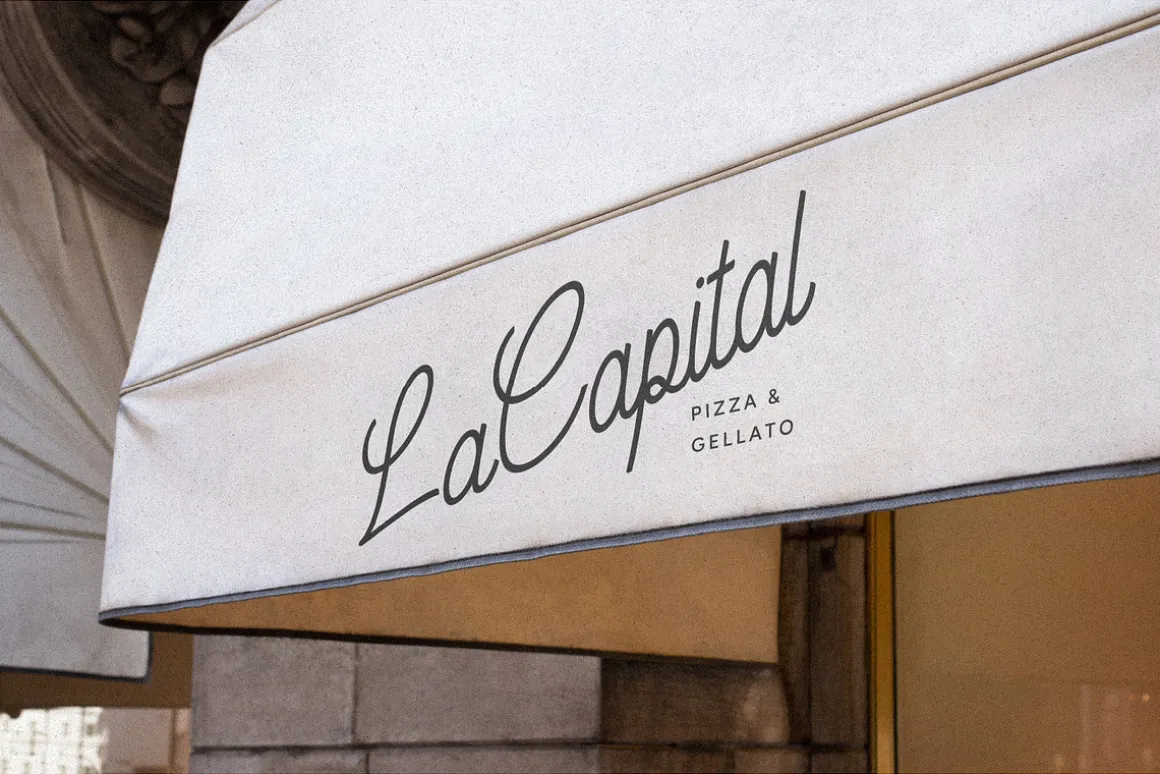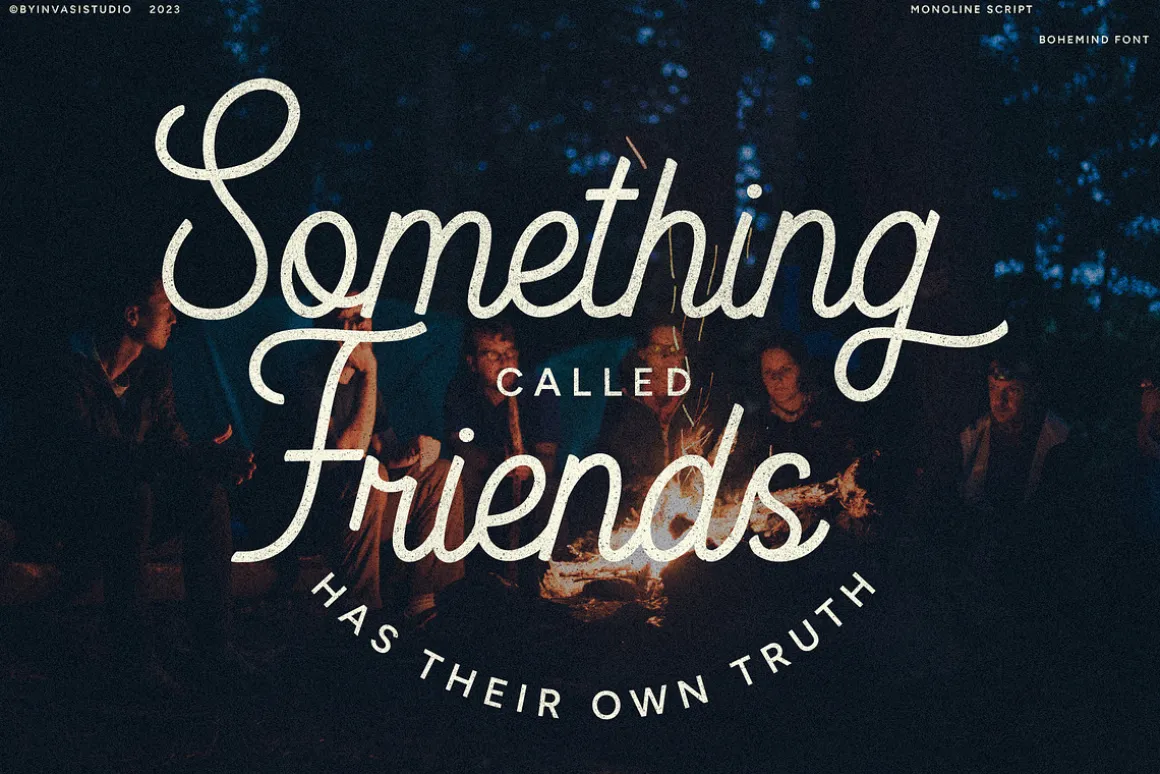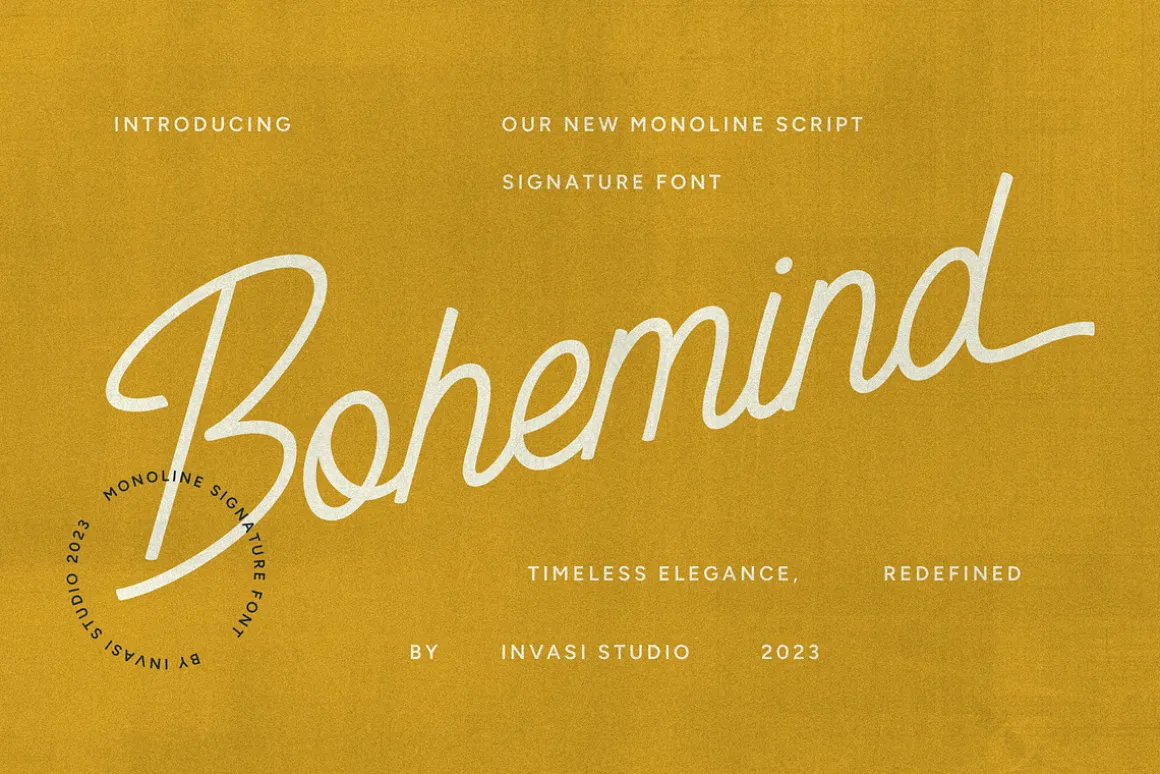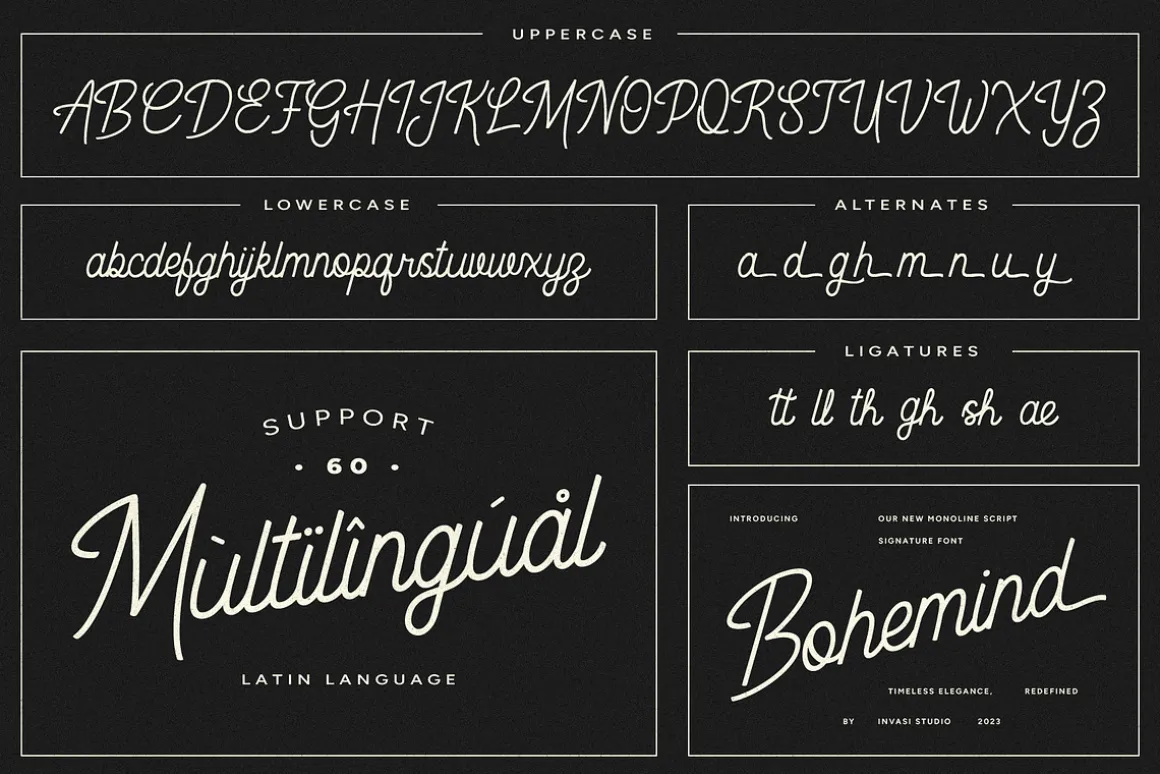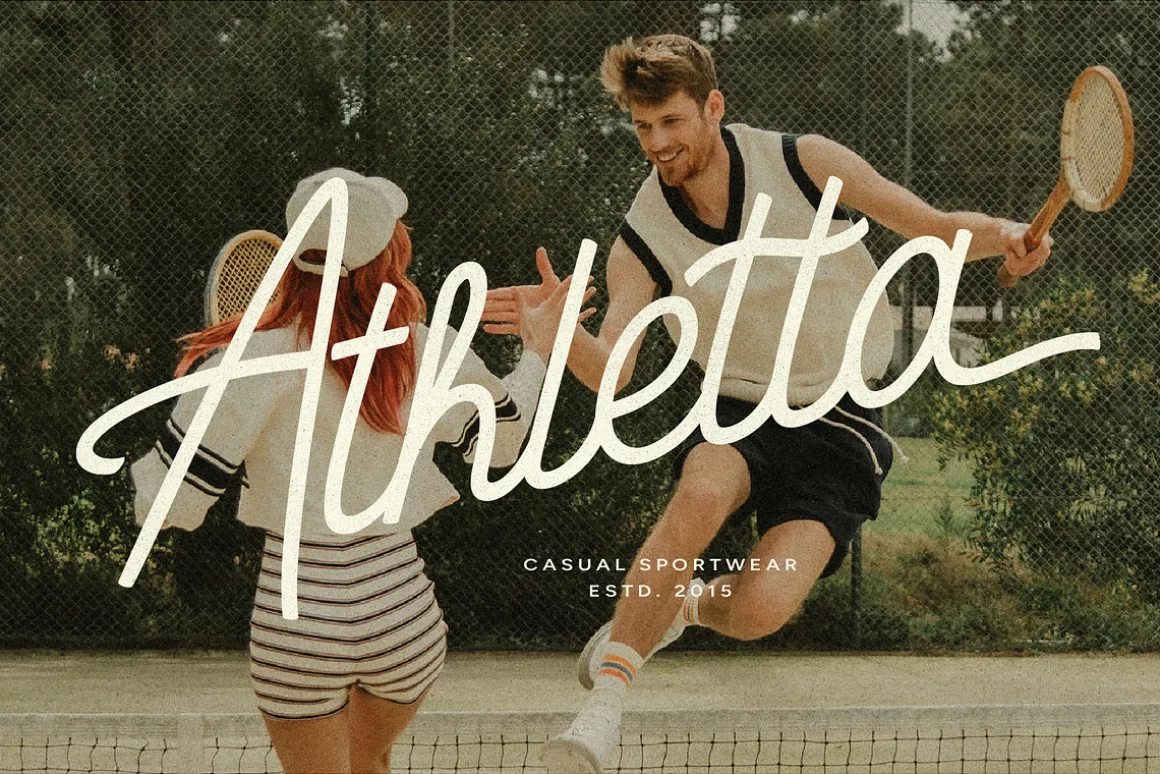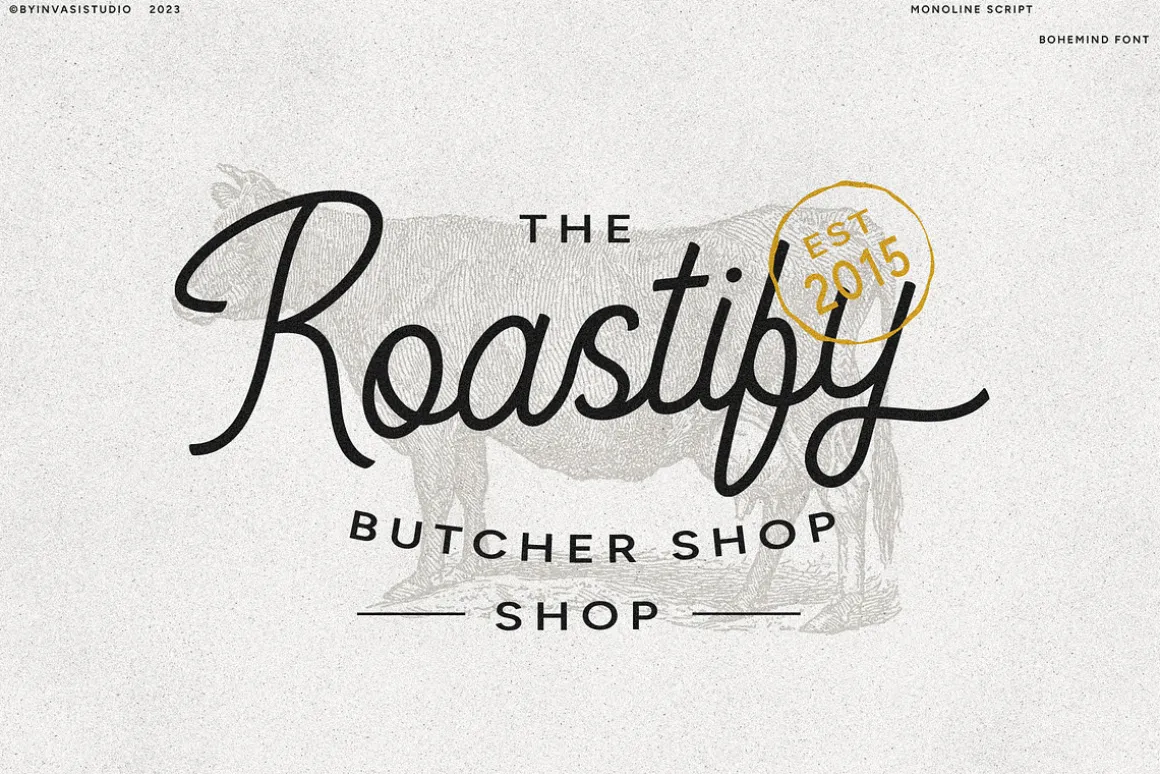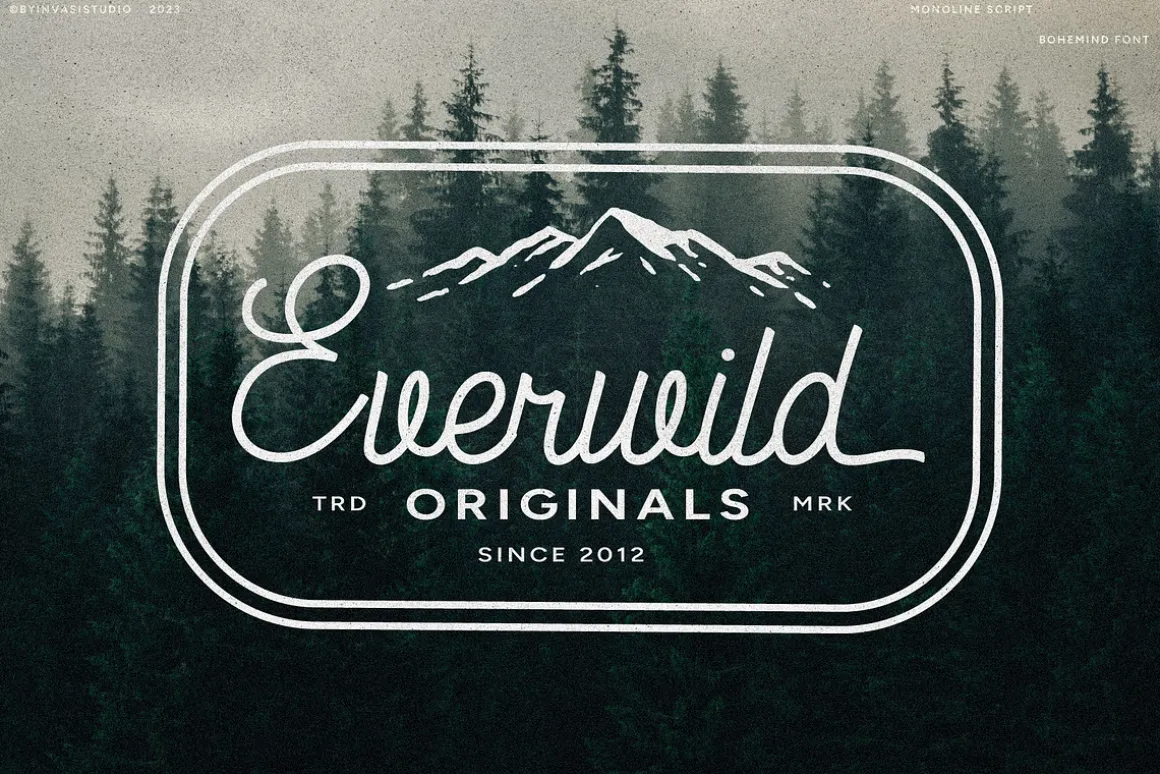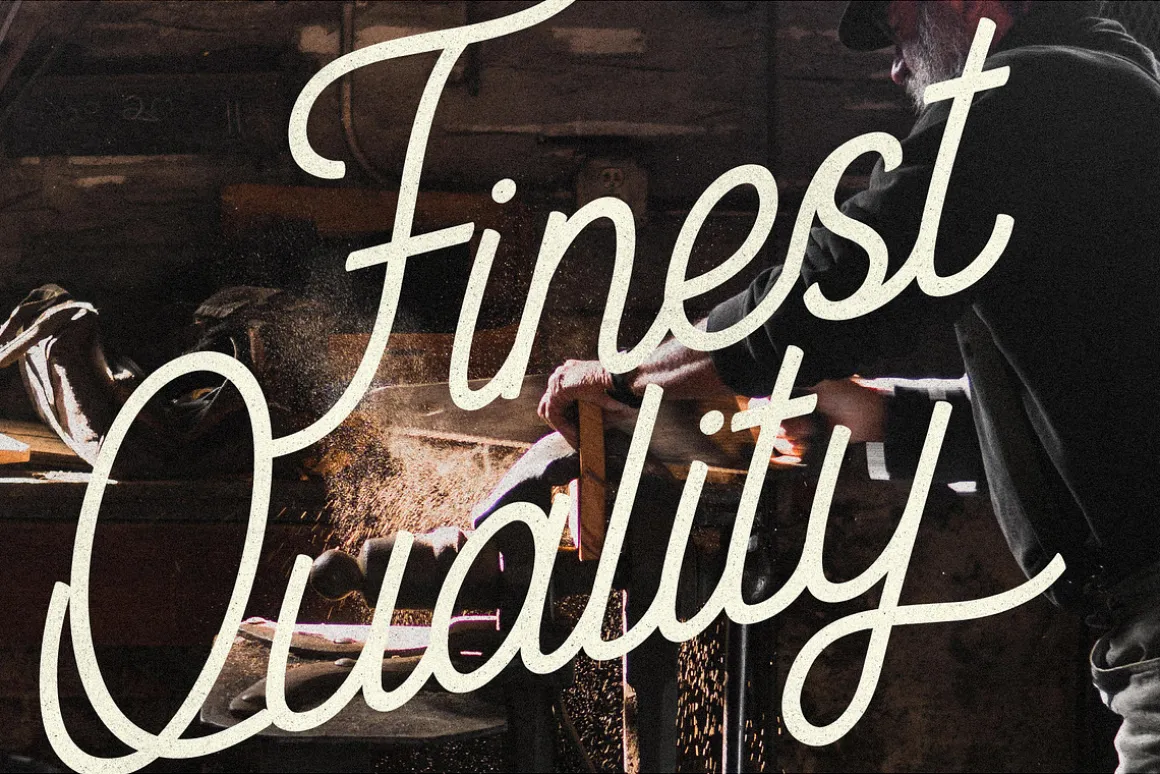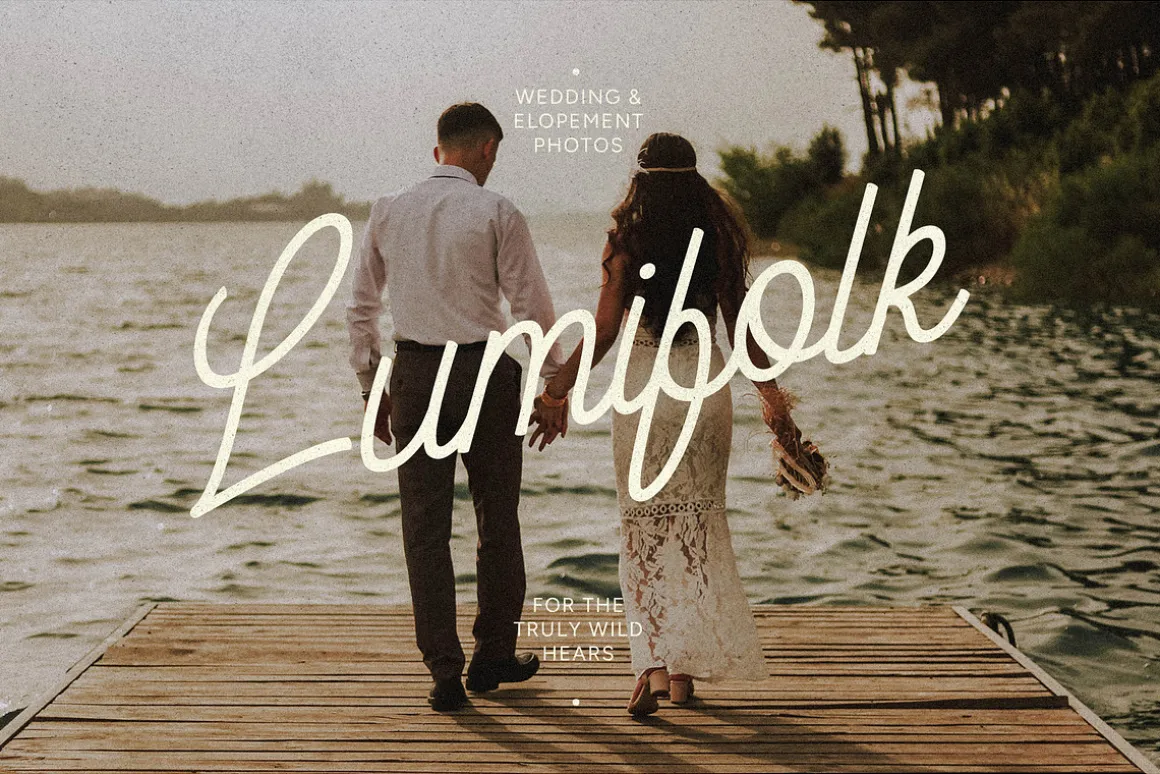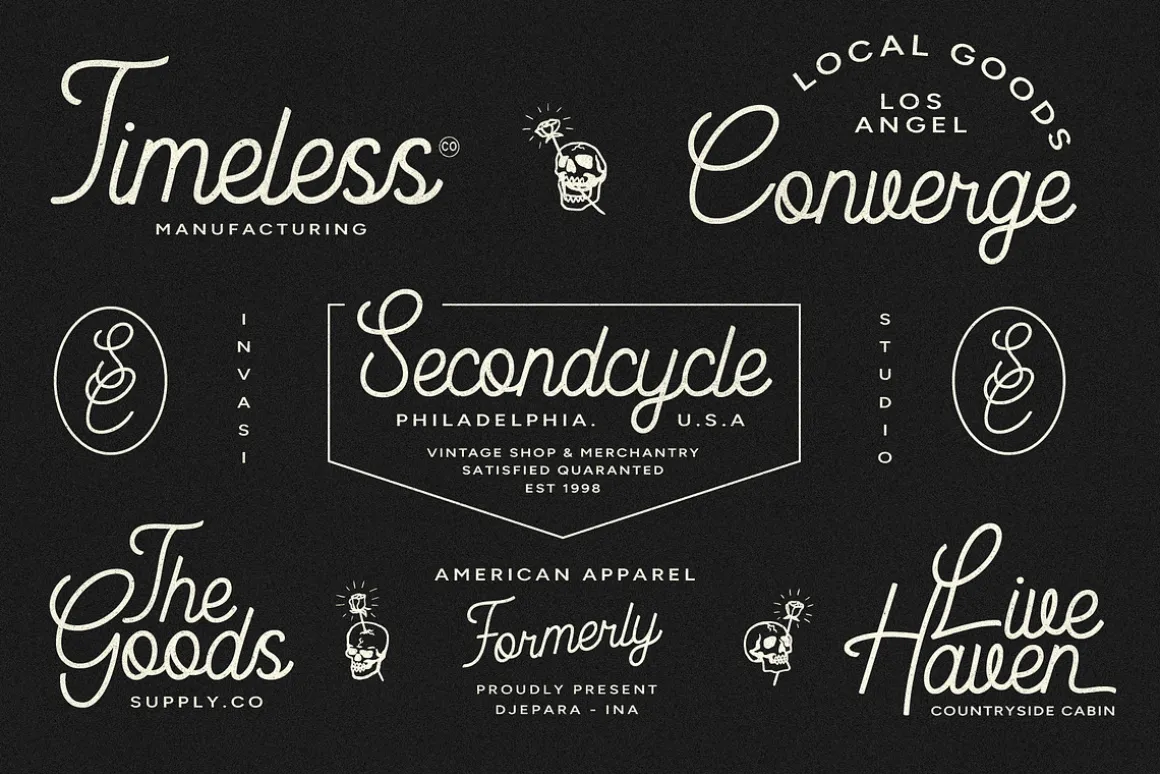
Looking for a stylish monoline signature font that can add a vintage vibe to your design? Bohemind is the perfect font for you! With its unique style, this monoline signature script font will help you create a stunning design that will catch the eye of anyone who sees it.
Bohemind comes with ending alternate swashes that make it even more stylish and elegant, and it’s ligatures and multilingual Latin language support mean you can use it for any project you want. Whether it’s for a logo, wedding invitations, or a poster, Bohemind will make your design stand out from the crowd.
If you want a font that is both stylish and practical, then Bohemind is the perfect choice for you. It’s the vintage vibe and unique style make it perfect for any design project, and its features ensure that it is easy to use and customize. So why wait? Try Bohemind today and see the difference it can make to your design!
Features:
- Uppercase & Lowercase
- Numerals & Punctuation
- Alternates and Ligatures
- Multilanguage Supports 60+ Latin-based languages